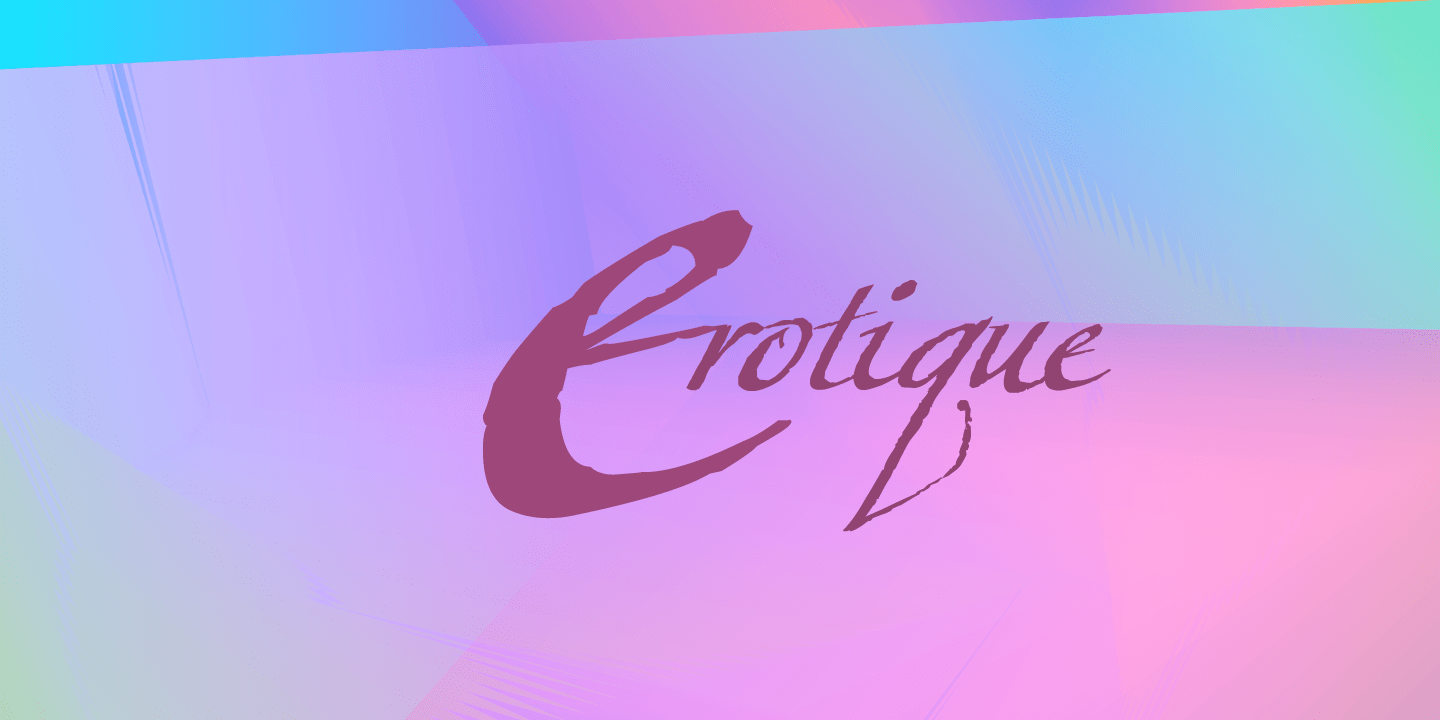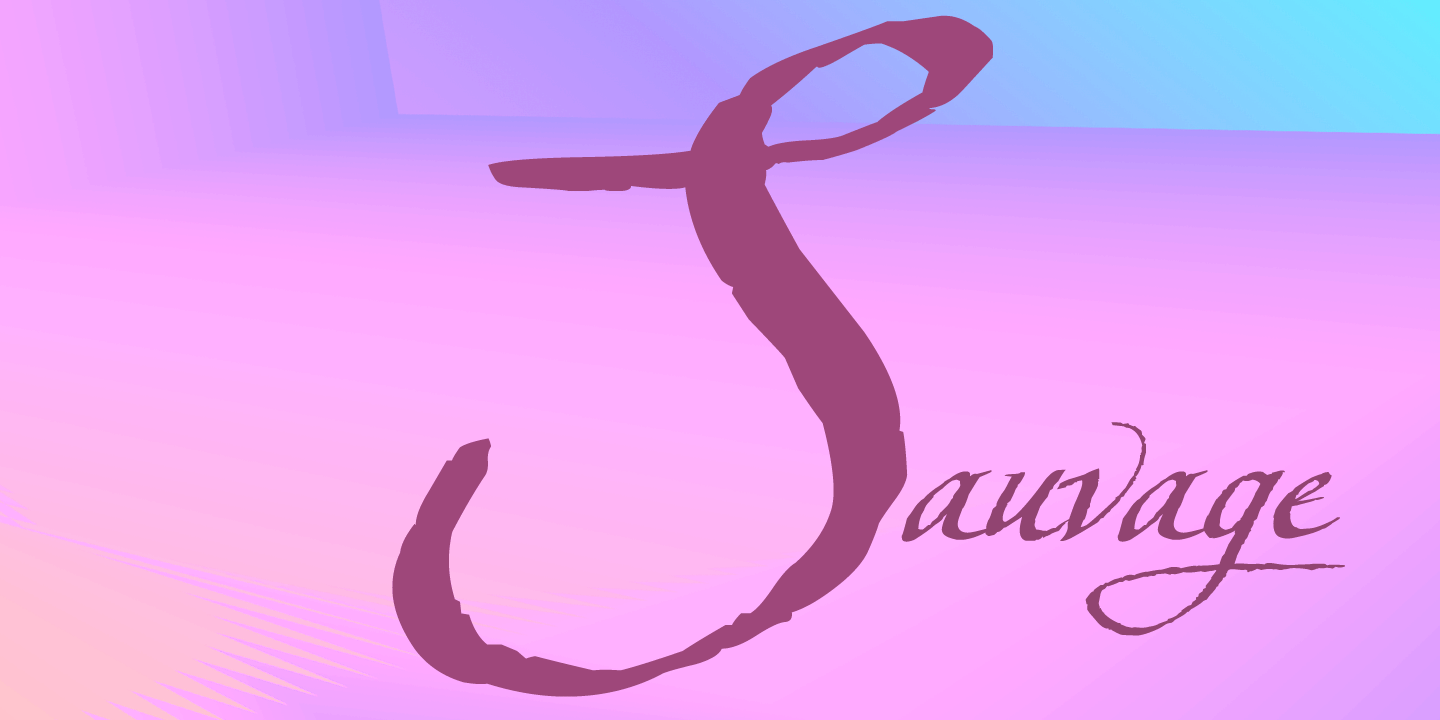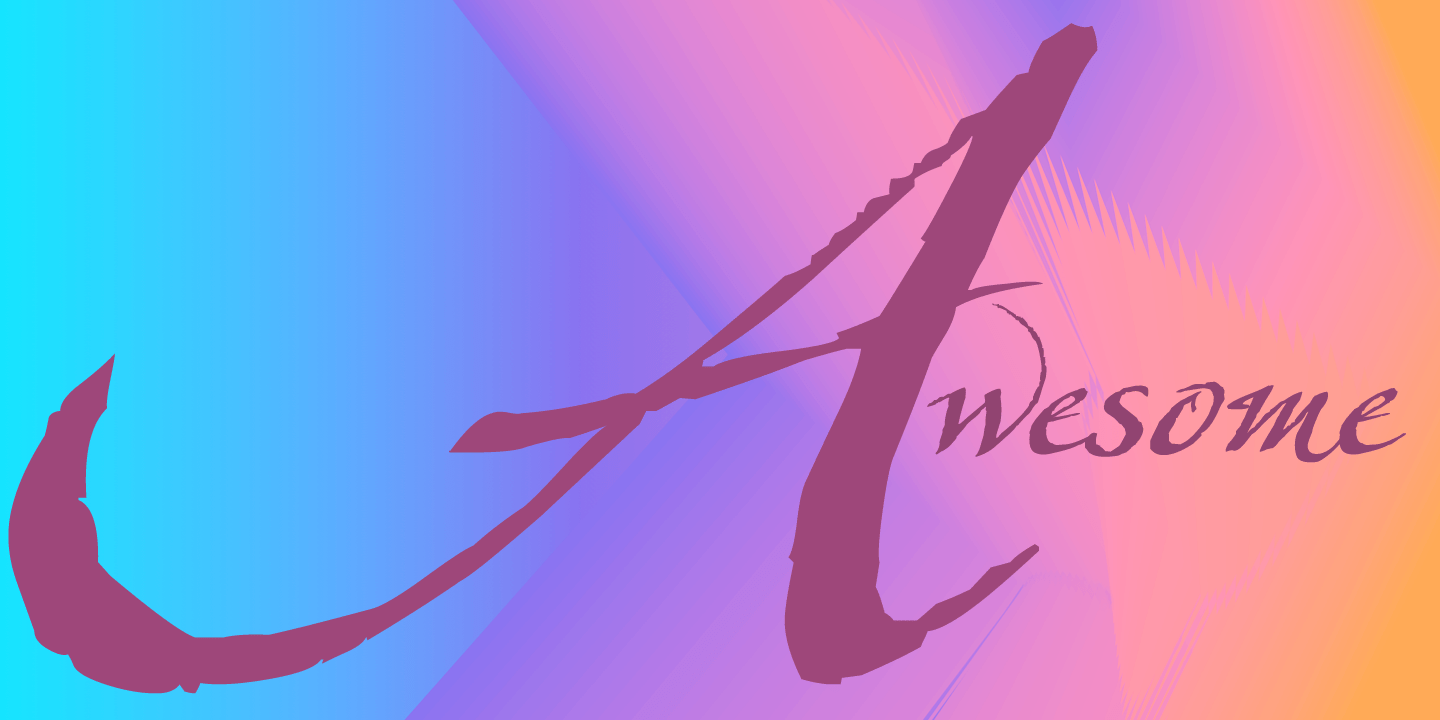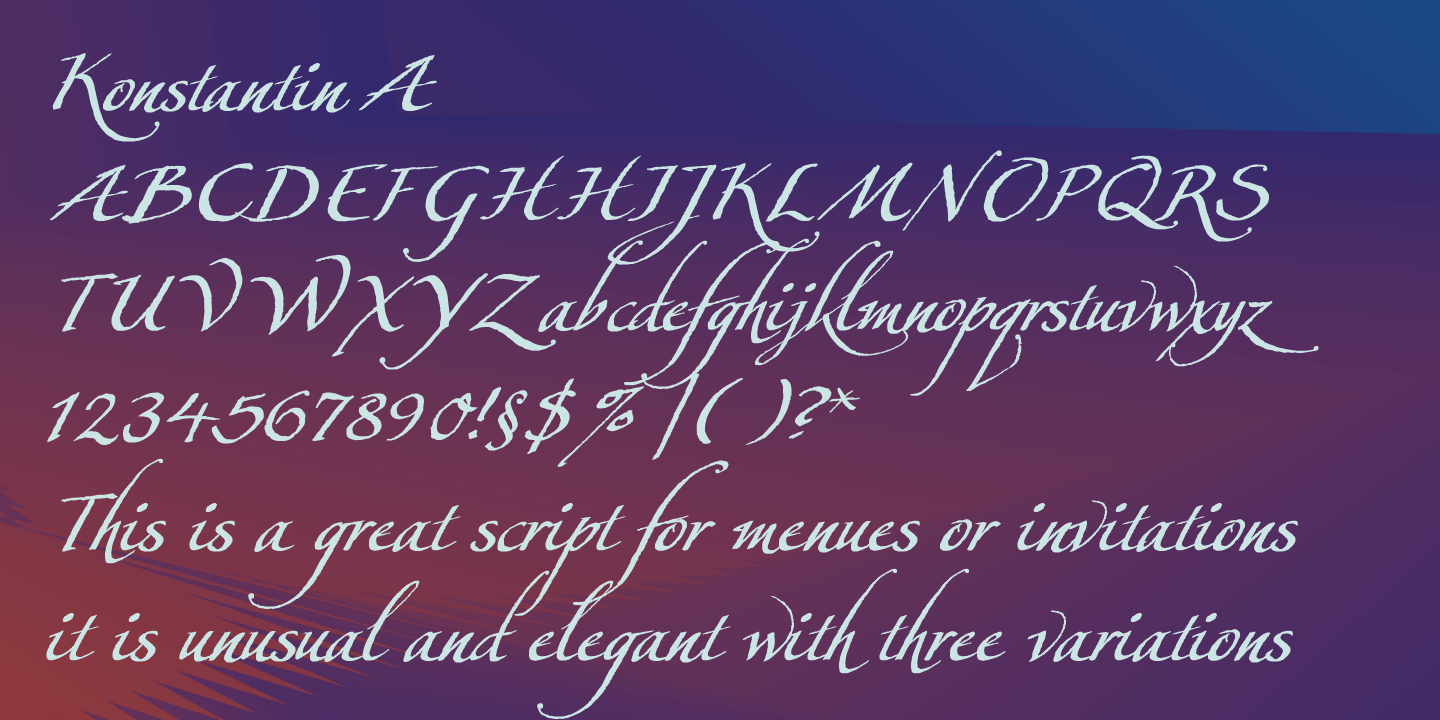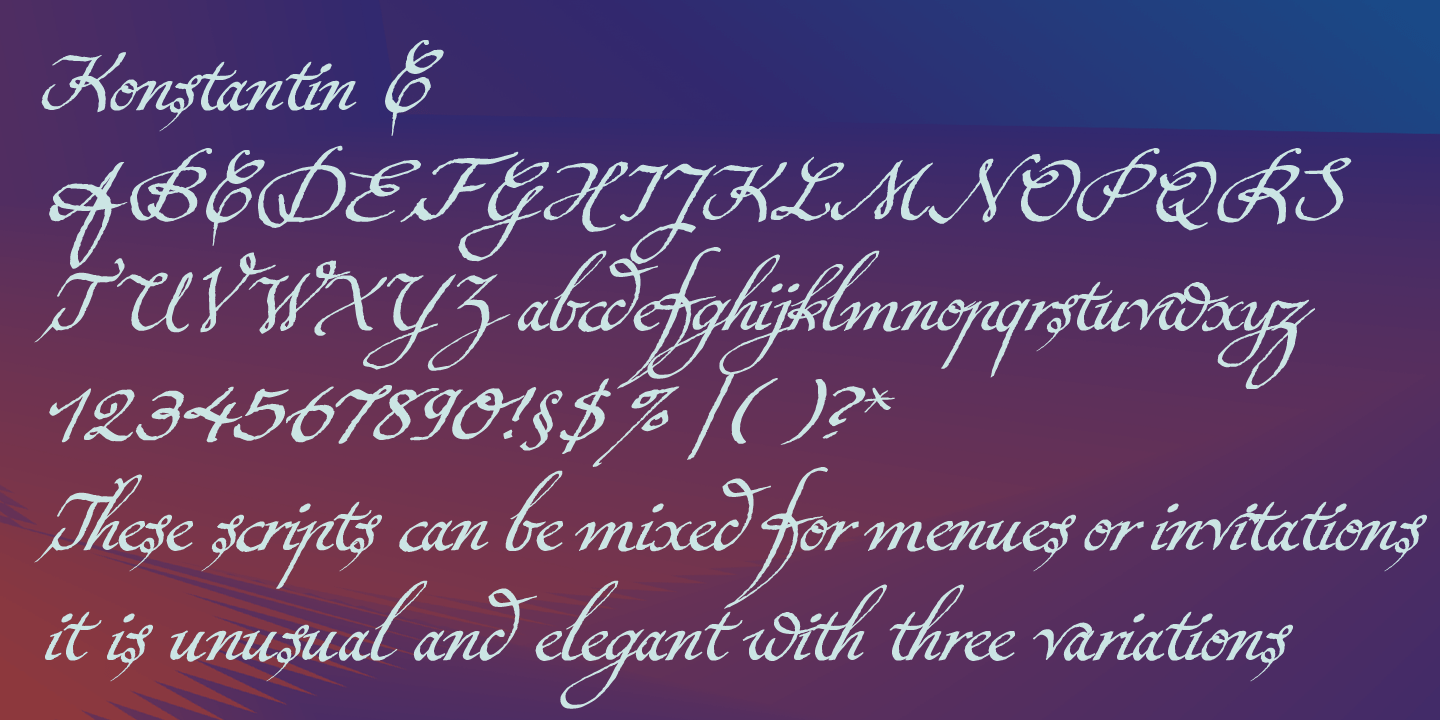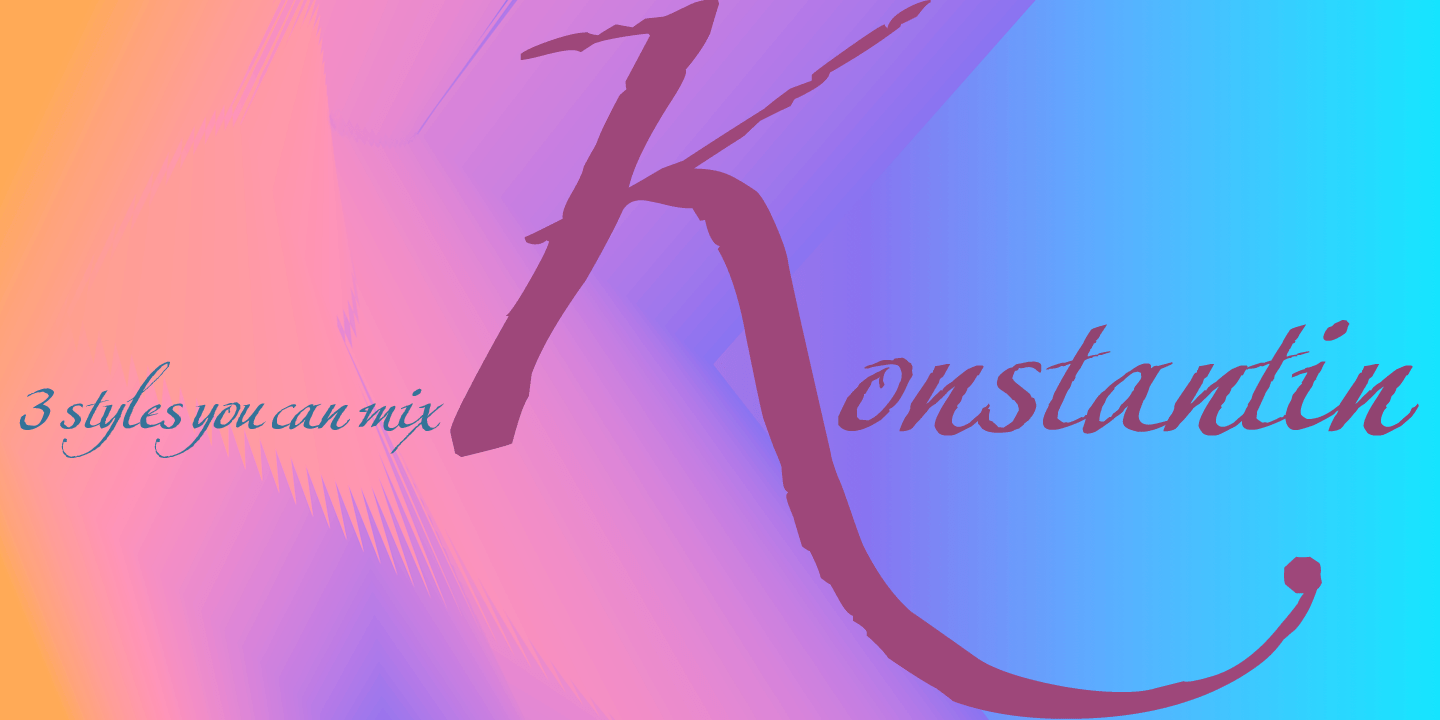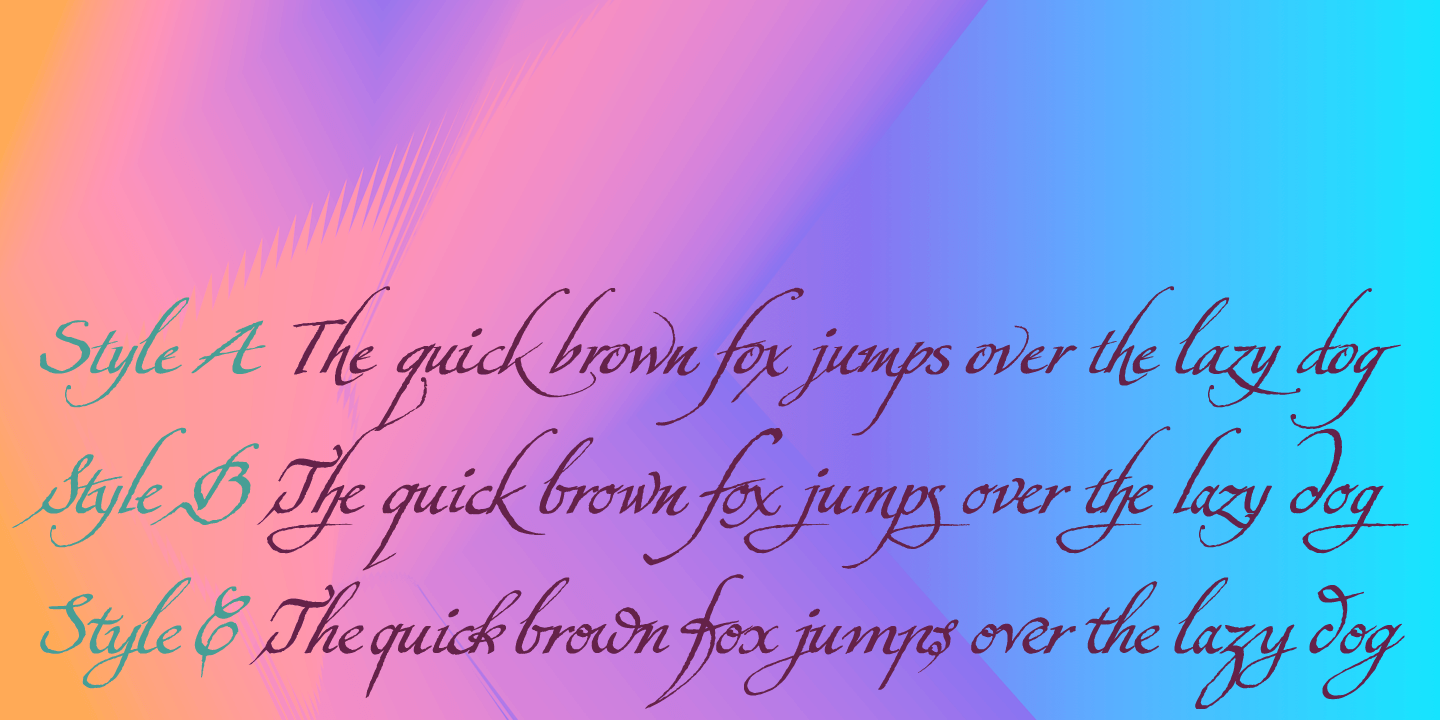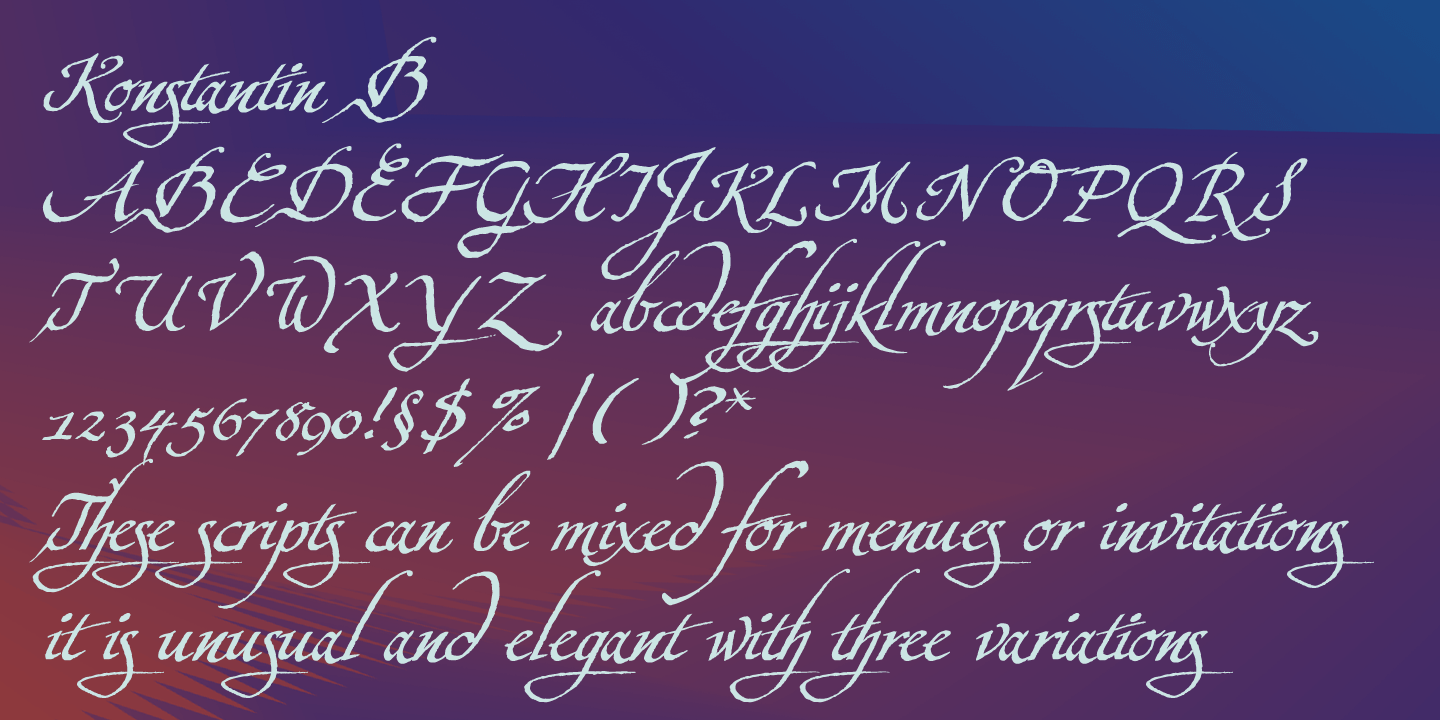
Konstantin
About Konstantin
My son Konstantin wants to become a cook. So I thought it would be a nice idea if I designed a script for his fabulous future menus as a gift for him. I think he will become a great cook. The three Konstantin cuts can be mixed. The A cut has the most…